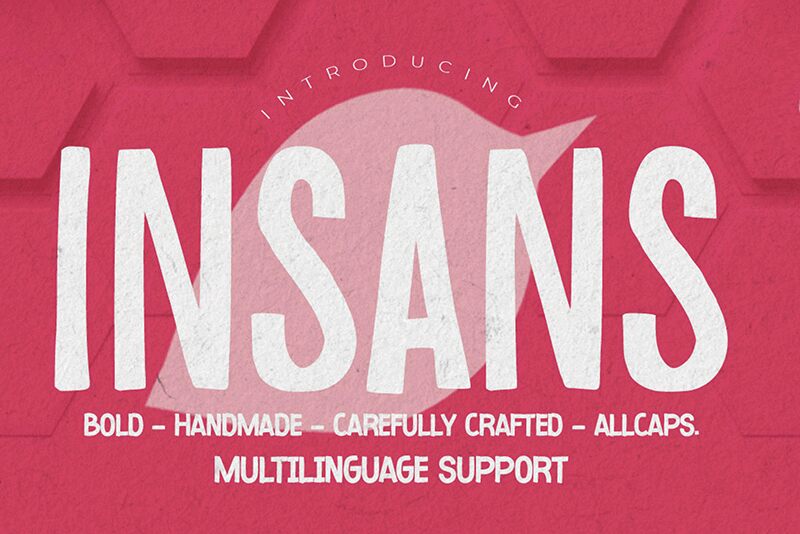
Insans
Unleash the playful spirit of Insans by Gassstype, a display font that marries the whimsicality of comic style with the distinctive flare of an extra-condensed typeface. Crafted with bold, handmade precision, Insans stands out in all caps to inject creative movement and a casual air into your projects. Its unique style is tailor-made for modern designs that demand a touch of fun and originality.
Ideal for an array of creative endeavors, Insans excels in bringing life to posters, labels, and branding materials. Its charmingly distinct presence enhances packaging, greeting cards, and even digital landscapes like websites or social media graphics. With its suitability for graffiti-inspired artwork, flyers, or children's books, this font encapsulates a versatile yet adorable aesthetic.
Choose Insans to infuse your creations with a natural cuteness and an unmatched vibrancy that resonates across diverse mediums and contexts.